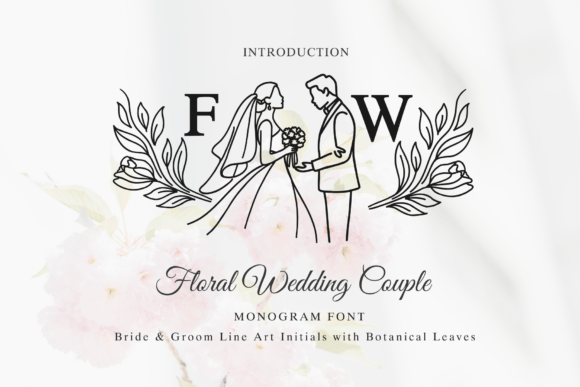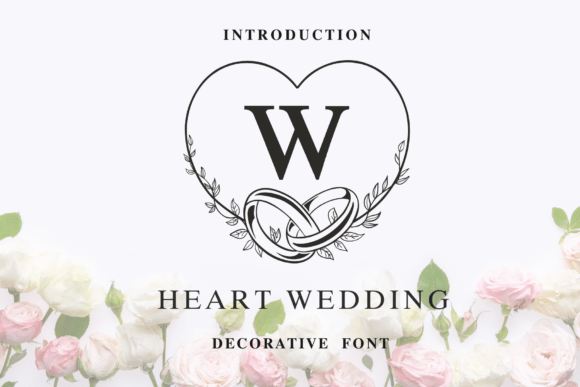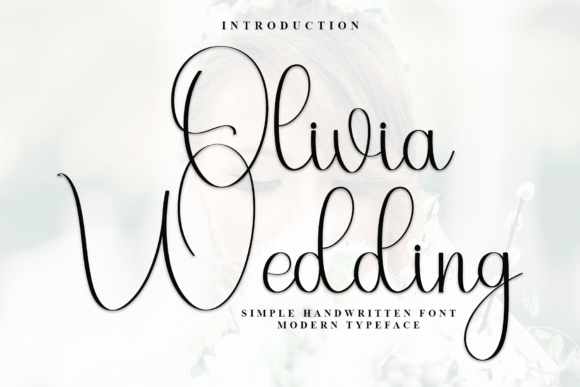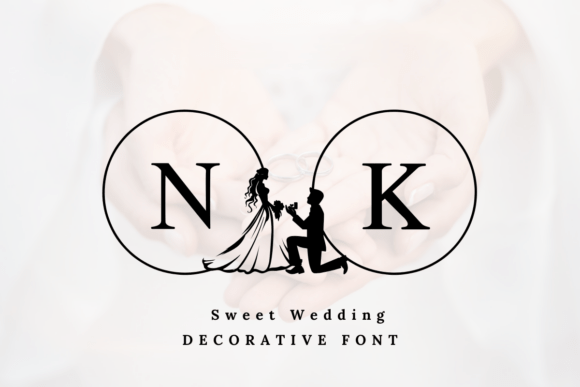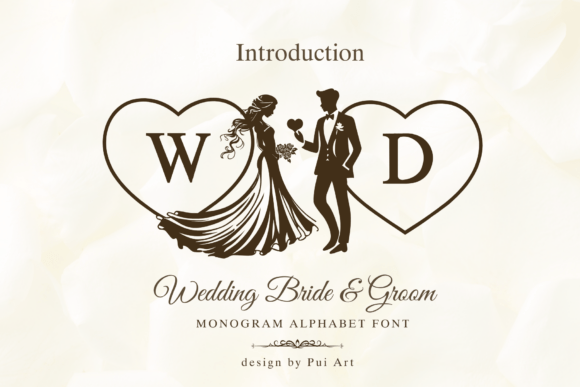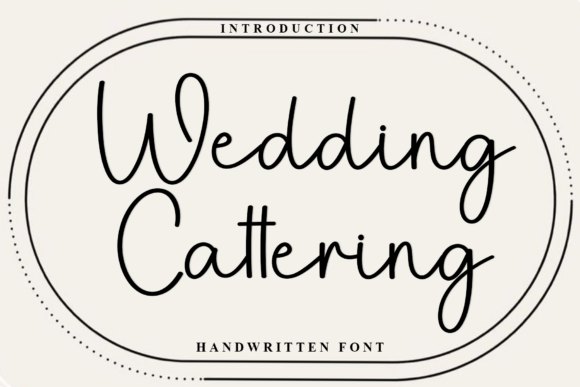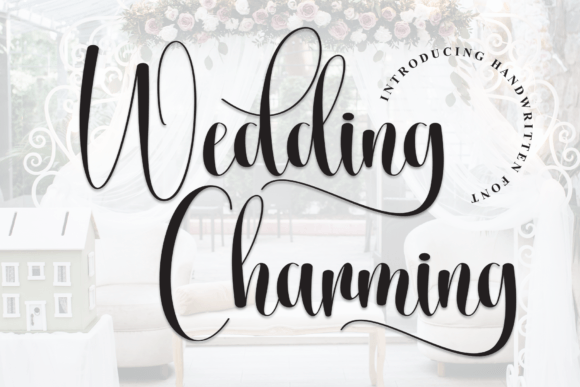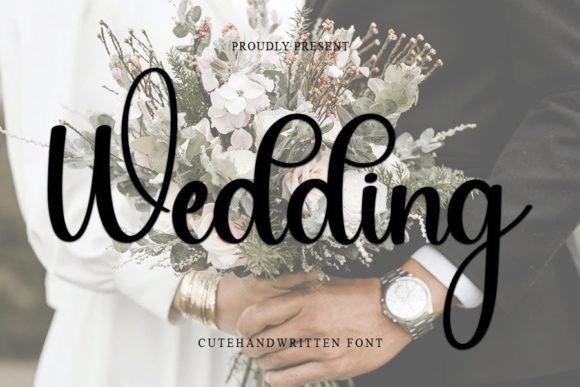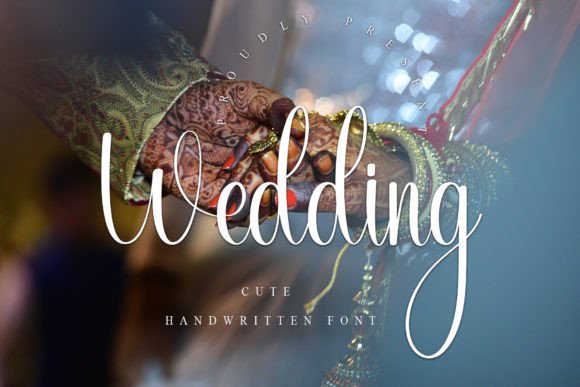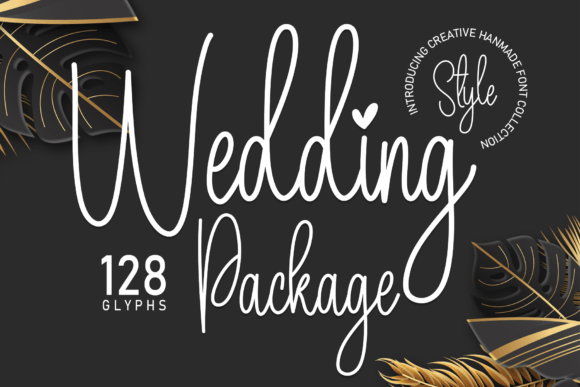
15 Vintage Wedding Fonts for an Old-World Romance
For an old-world, timeless celebration, vintage wedding fonts carry the charm of another era.
From classic serifs to heritage scripts, these vintage wedding fonts bring nostalgic elegance to invitations, monograms and signage.
How to Choose the Best Vintage Wedding Fonts
Vintage style leans on tradition, so look for classic serif structures, graceful scripts and details that feel established rather than trendy.
Period-appropriate serif type sells the era. Pair a traditional serif with a refined script, and finish with muted, antique-inspired colours like ivory, sepia and gold.
• Choose classics. Traditional serifs and heritage scripts feel authentically old-world.
• Antique palette. Ivory, sepia, gold and deep tones reinforce the era.
• Add texture. Subtle aging or letterpress effects complete the look.
The easiest winning formula with vintage wedding fonts is contrast: choose one expressive face as your hero, then pair it with one quiet, highly legible font for the practical details. Reuse that exact pairing across your invitations, signage and wedding website so the whole suite feels intentional and calm.
The 15 Best Vintage Wedding Fonts
Wedding Enchanting
Wedding Enchanting, one of the best vintage wedding fonts
Wedding Enchanting carries an old-soul sophistication, the sort of script you would expect engraved on a heirloom invitation. Its restraint is what makes it feel expensive.
Best for: wedding invitations, branding, stationery.
Wedding Natalia
Wedding Natalia, one of the best vintage wedding fonts
Wedding Natalia is all soft allure and quiet confidence, a script that flatters a name the moment you type it. There is a poetic, almost cinematic quality to its flourishes.
Best for: wedding invitations, branding, stationery.
Wedding Day (Vintage Script)
Wedding Day (Vintage Script), one of the best vintage wedding fonts
Wedding Day reads like timeless devotion, with delicate, sentimental letterforms that feel pulled from another era. It turns even ordinary words into something tender.
Best for: wedding invitations.
Wedding Nayla
Wedding Nayla - script font for weddings
Wedding Nayla turns every word into a small masterpiece, with supreme elegance in its finely crafted letters. It radiates class without trying too hard.
Olivia Wedding
Olivia Wedding - script font for weddings
Delicate, elegant and timeless, Olivia Wedding has beautifully balanced characters that suit almost anything. PUA-encoded, so the prettiest glyphs are a click away.
Best for: wedding invitations, branding, stationery.
Wedding Bride & Groom Monogram
Wedding Bride & Groom Monogram - monogram font for weddings
A timeless A to Z monogram featuring bride-and-groom silhouettes inside a heart frame. Ready for initials, signage, gifts and Cricut or Silhouette crafts.
Best for: wedding invitations, monograms, signage, crafts.
Heart Wedding Monogram
Heart Wedding Monogram - monogram font for weddings
A decorative monogram font built from hearts, floral wreaths and intertwined rings, all symbols of union. Perfect for personalised monograms and save-the-dates.
Best for: save-the-dates, wedding invitations, monograms, signage.
Wedding Vintage (Elegant Script)
Wedding Vintage (Elegant Script) - script font for weddings
A neat, beautiful handwritten font with an elegant, timeless touch. Its distinct, old-world character suits heritage-leaning stationery.
Best for: wedding invitations, branding, stationery.
Wedding (Timeless Handwritten)
Wedding (Timeless Handwritten) - script font for weddings
A neat, elegant handwritten font with a distinct, timeless feel that suits favourite, fuss-free projects. Reliable when you want quiet, classic lettering.
Best for: wedding invitations, branding, stationery.
Wedding (Refined Vintage Script)
Wedding (Refined Vintage Script) - script font for weddings
A neat, beautiful handwritten font with a refined, timeless character. A natural fit for vintage-leaning invitations and heritage branding.
Best for: wedding invitations, branding, stationery.
Floral Wedding Couple
Floral Wedding Couple - monogram font for weddings
A romantic line-art alphabet pairing bride-and-groom illustrations with botanical leaves. Tailor-made for monograms, signage and personalised decor.
Best for: wedding invitations, monograms, crafts.
Sweet Wedding (Serif)
Sweet Wedding (Serif) - monogram font for weddings
A charming decorative serif laced with wedding-themed details like rings and silhouettes. A classic-meets-romantic pick for invitations and engagement designs.
Best for: save-the-dates, wedding invitations, branding, cards.
Wedding Cattering
A classic script for names or a quiet companion serif keeps the design cohesive and authentically traditional.
Final Thoughts
These vintage wedding fonts wrap your day in timeless, old-world elegance.